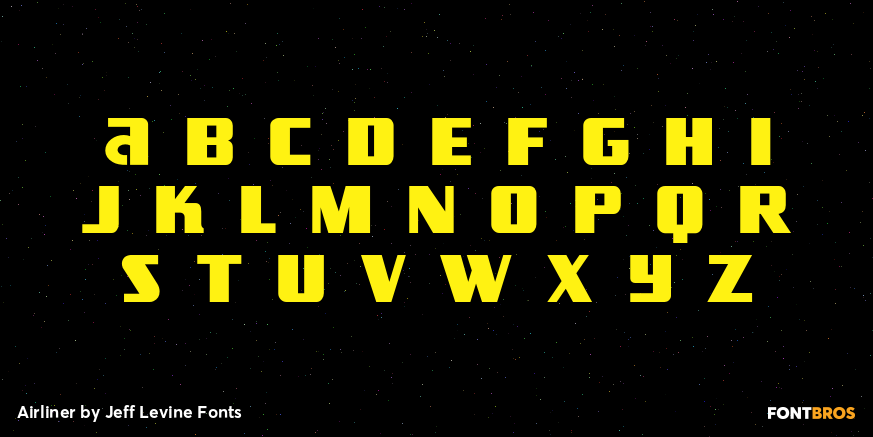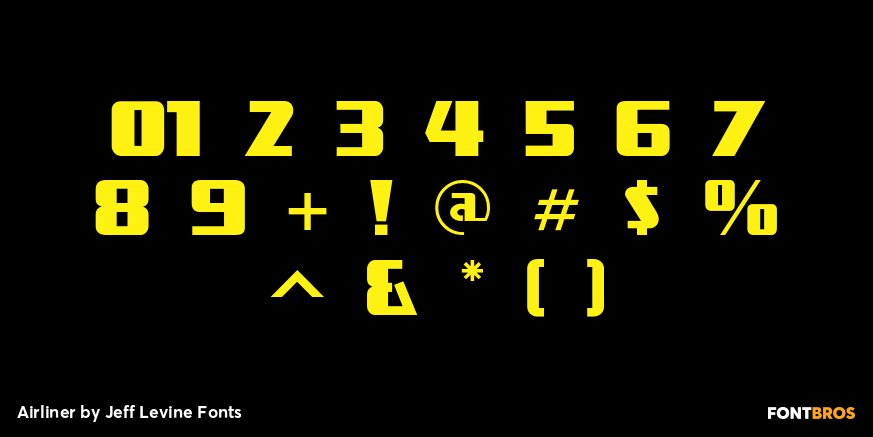
Airliner
Airliner JNL was modeled from an advertising postcard for a popular 1940s Miami Beach night spot called Kitty Davis' Airliner. This Art Deco flavored sans serif type design was hand lettered on the original promotional piece.